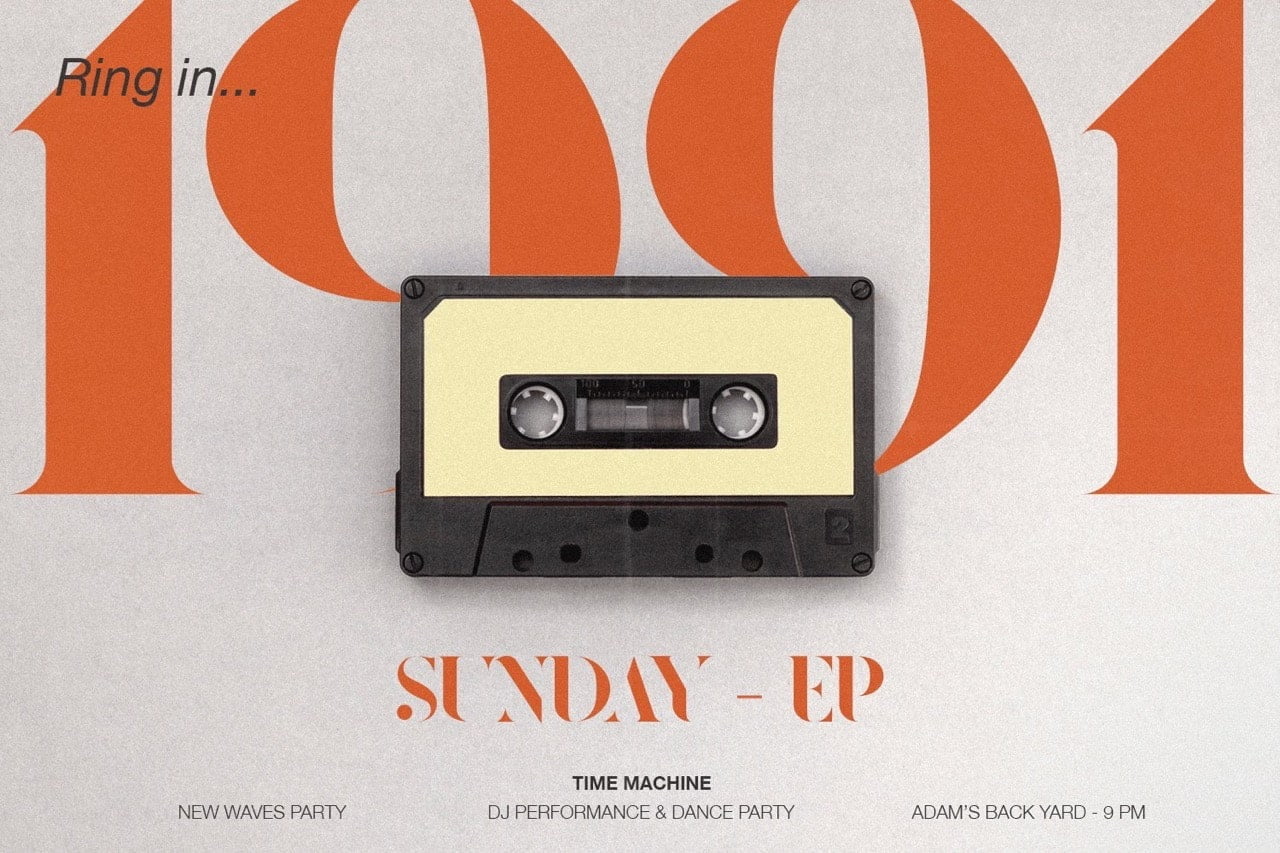
Redland is a minimal, classic serif font designed for brand or logo design. It teases your eyes with its curves while still maintaining a classy personality using multiple weights, stylistic ligature and alternate fonts.
• 5 Weights
• Basic Latin A-Z and a-z
• Numerals & Punctuation
• Stylistic Ligatures and Alternate Glyphs
• Multilingual Support for ä ö ü Ä Ö Ü …
Redland Serif